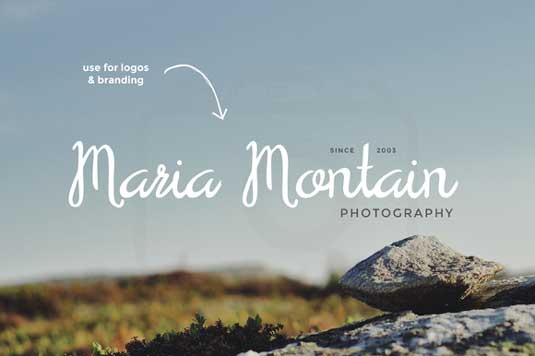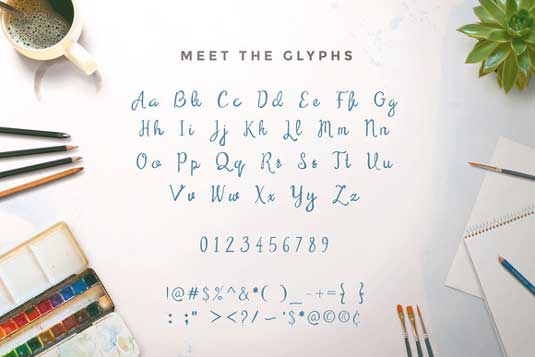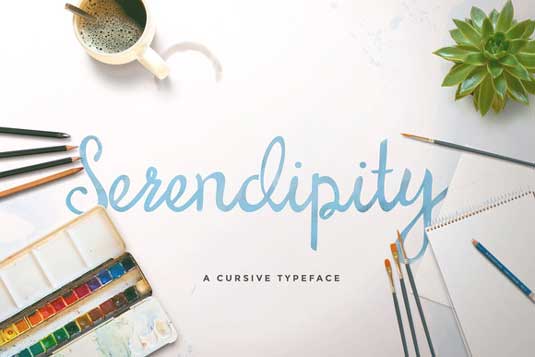
Font of the day: Serendipity
Serendipity from Maroon Baboon
A new handwritten font for 2015, Serendipity was created by the team at design agency The Hungry JPEG. Including 90 different hand drawn characters for a range of languages and dialects, Serendipity is currently available to download for free over on Creative Market. But hurry – this offer ends soon!